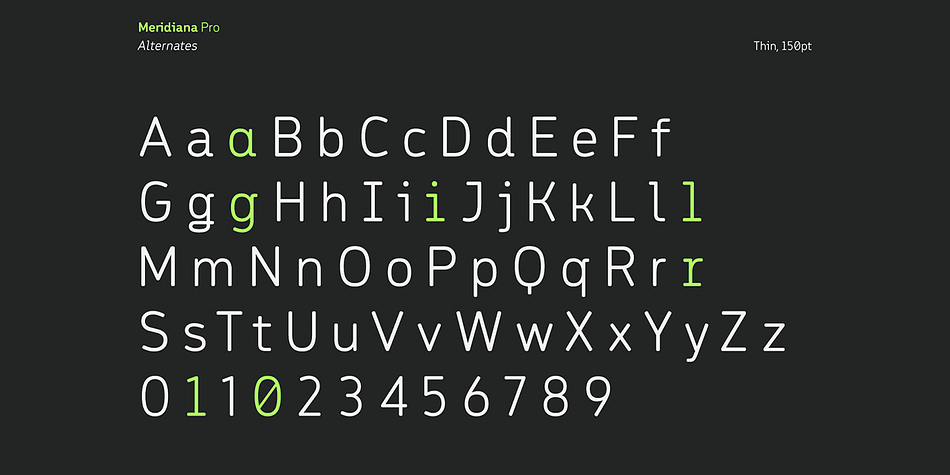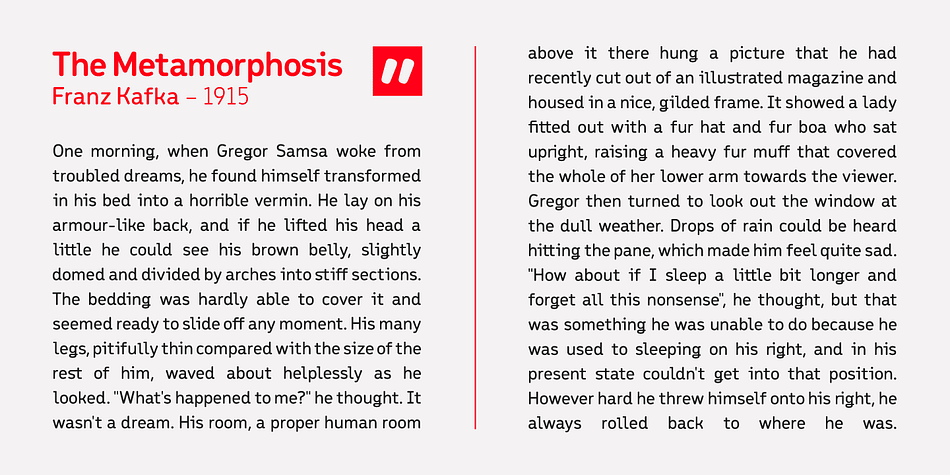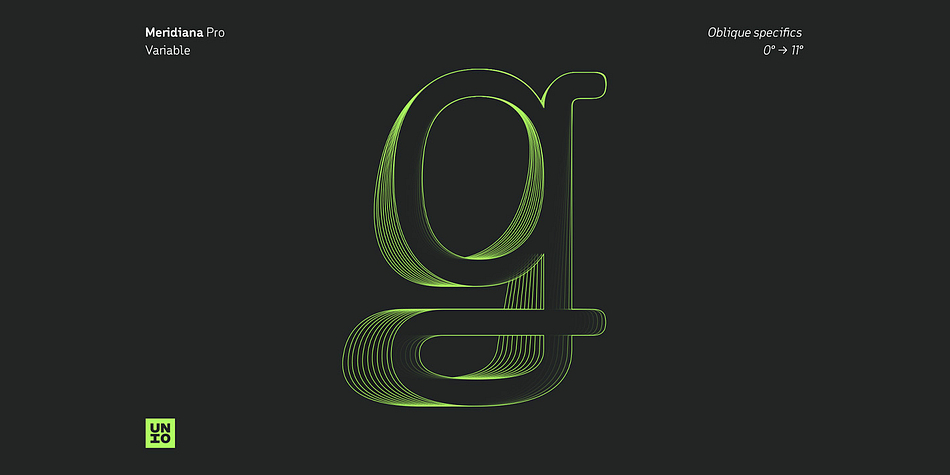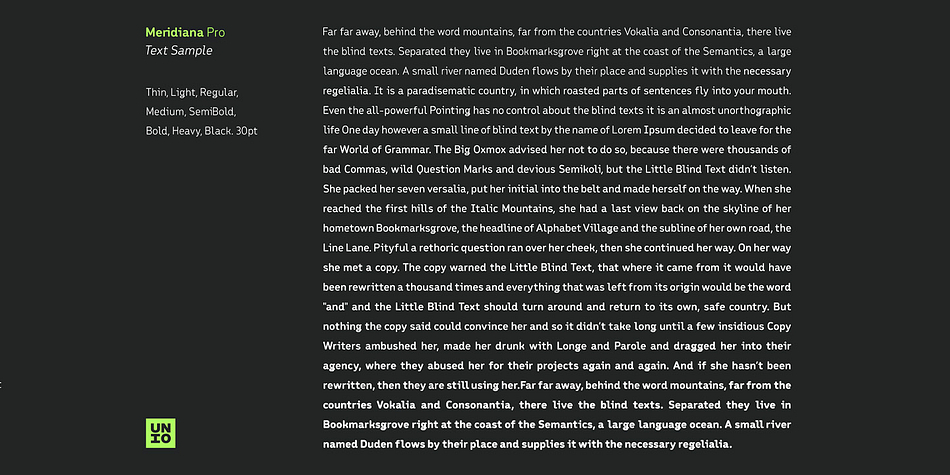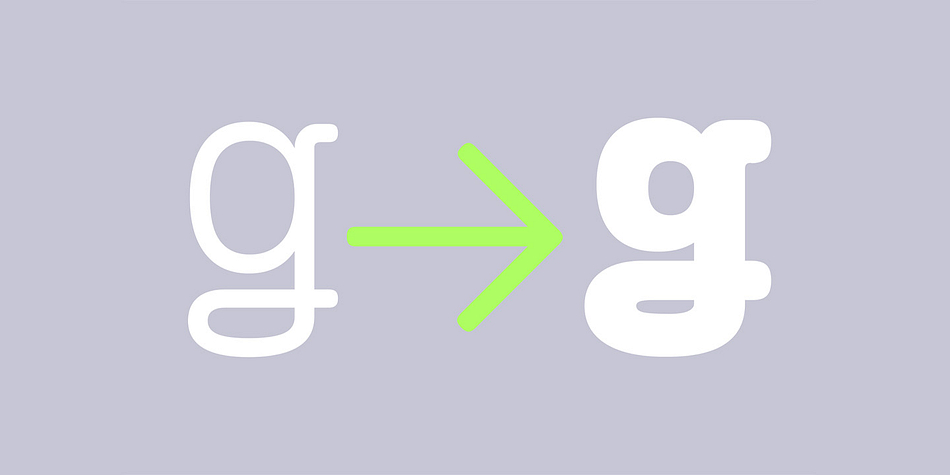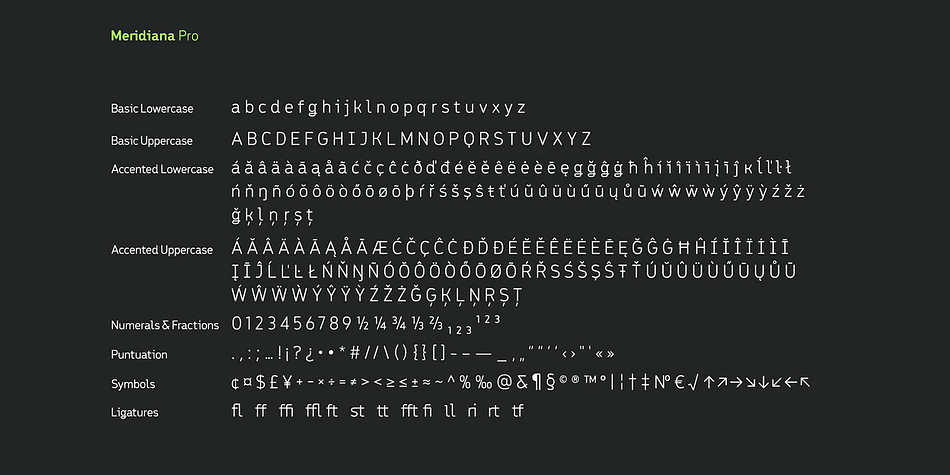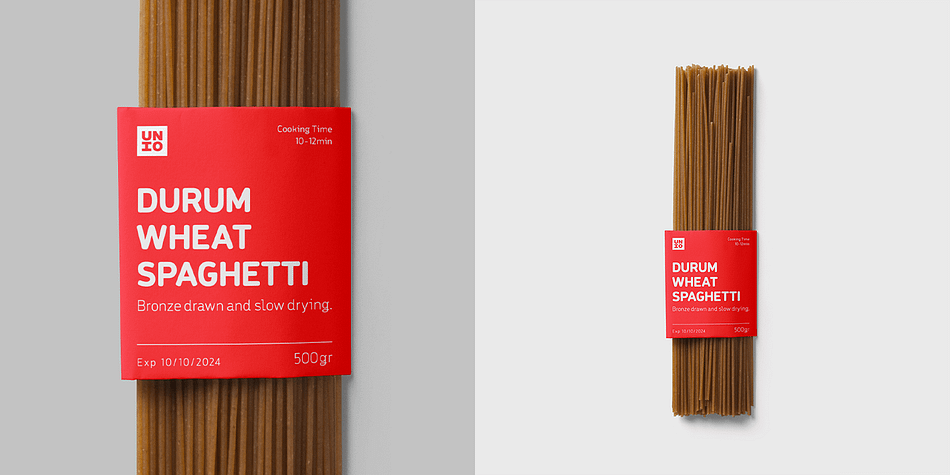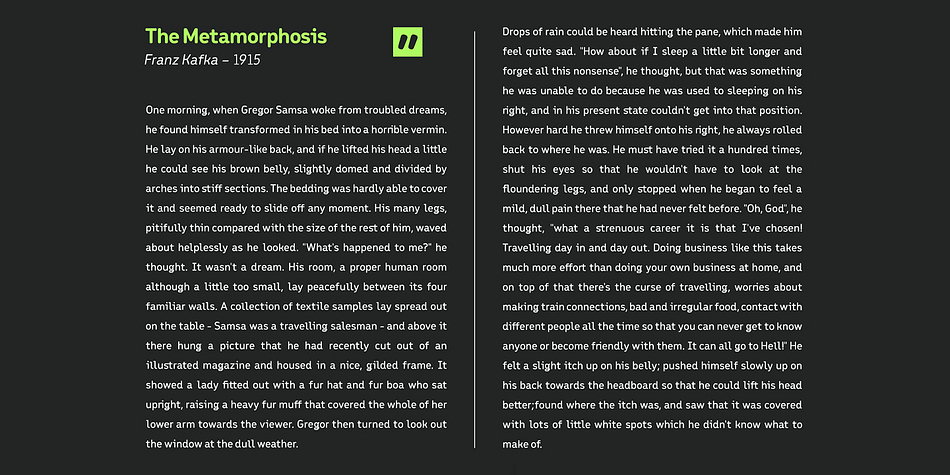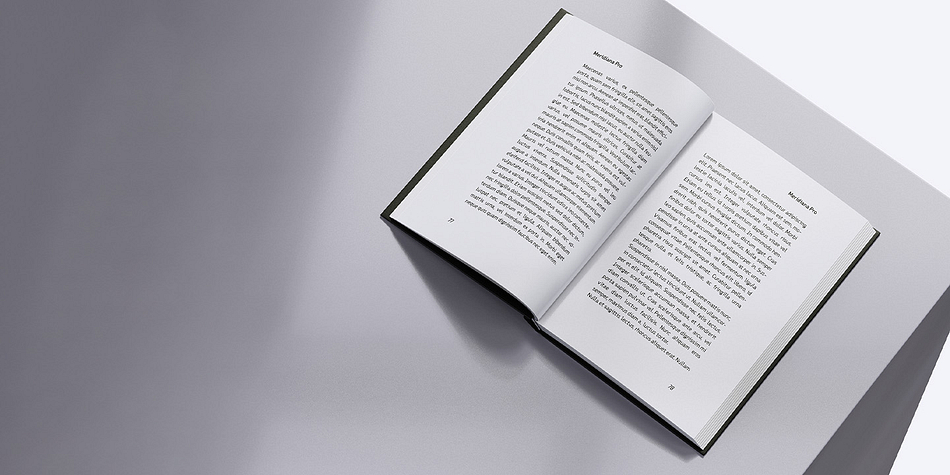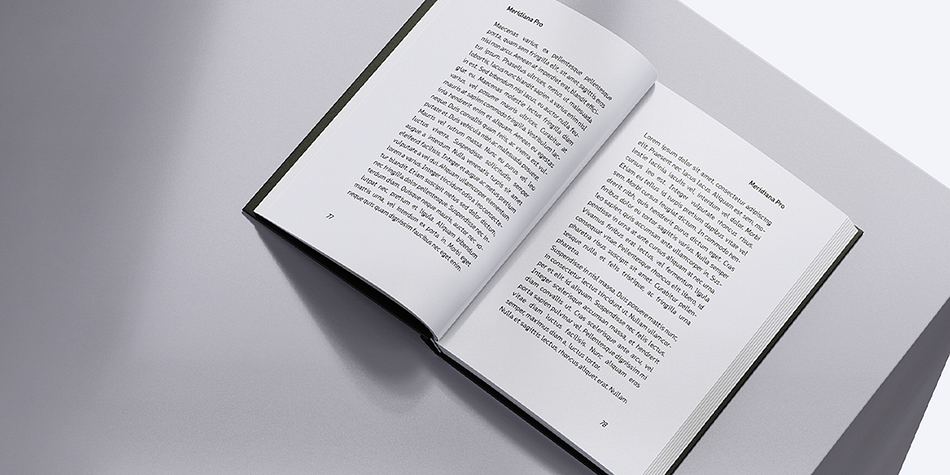
Meridiana Pro
Meridiana Pro is a sans serif and typewriter font family. This typeface has seventeen styles and was published by Unio Creative Solutions.
The concept behind Meridiana Pro was to create an amalgamation between a rounded sans and a monospaced font in order to obtain an extensive and usable variable type-system.
This typeface encapsulates a symmetrical and balanced rhythm due to the unique blend of different sources of inspiration. Proportions are precisely adjusted with smooth contours and subtle contrasts. These forms give the font an eye-catching look without compromising elegance and minimalism, ensuring that each glyph will work well in any graphic design purpose.
The focus was to create a versatile type family with range of alternates, ligatures, and symbols, including the extensive language support of most European languages.
Meridiana Pro design space includes two axes, weight and italic and is available as a variable font or as a separate OpenType family, including weights from Thin to Heavy plus their obliques.
-  8 weights with matching obliques
- Multi-language support (Central, Eastern, Western European languages)
- OpenType Features (Superscript and Subscript Numerals, Fractions, Ligatures, Alternates)